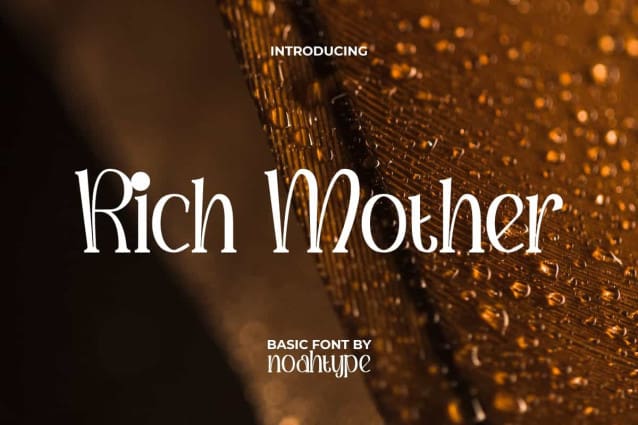
Rich Mother Font
Rich Mother Font is a cute serif display font suitable for many playful projects. This font has a distinctive curvature of the letters which makes it look very attractive. It will be perfect for any designs, such as brand image, cover, custom design, invitation, label, marketing material, poster, product packaging, quote, signage, stationery, web, and many more!
Rich Mother Font includes full set of Uppercase and Lowercase Basic Characters, Numerals, Punctuation, and Symbol. This font has beautiful characters and will be perfect choice for many industries, such as advertising, beauty product, café, fashion, home furniture, jewelry and accessories, perfume, printing, publishing, restaurant, etc.